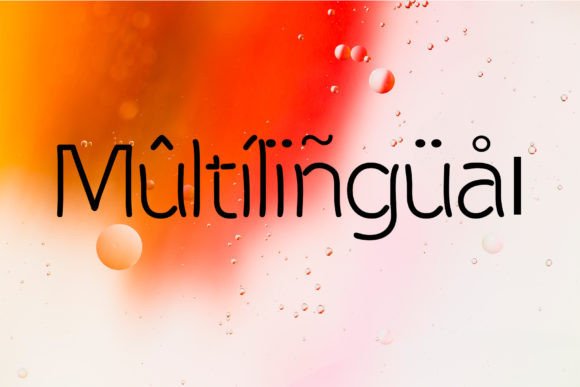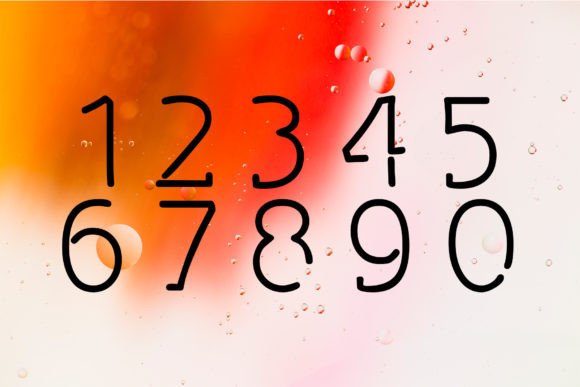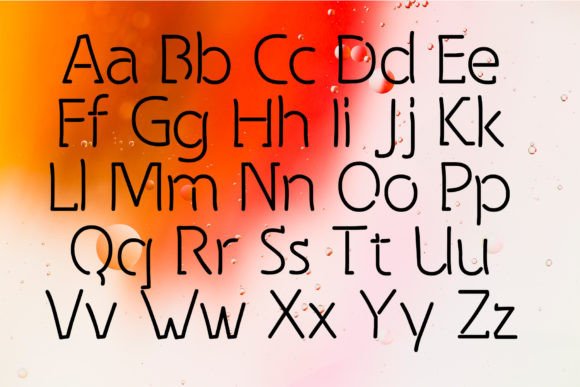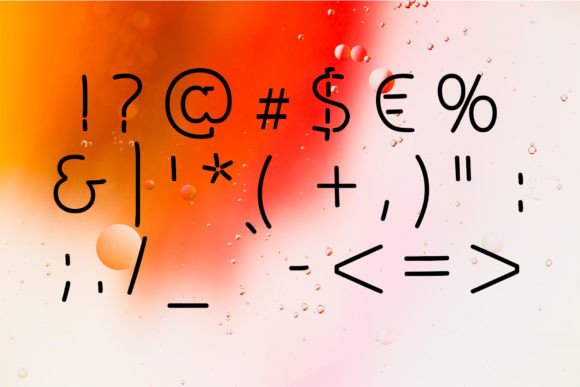
Introduction to Learning Grounds Font
Remember the thrill of discovering a new font that perfectly captures the essence of your creative project? For designers and crafters alike, finding that one special font can be a game-changer. It’s like stumbling upon a hidden treasure that elevates your work to the next level. This is exactly what happens when you come across the delightful Learning Grounds Font.
With its fun and friendly display style, Learning Grounds Font is the perfect design resource for any occasion. Whether you’re working on a digital project, creating handmade crafts, or making personalized greeting cards, this high-quality font is sure to bring a smile to your face and a touch of personality to your work. And the best part? It’s available for free download, making it an accessible and valuable addition to any design arsenal.
As a valuable design resource, Learning Grounds Font offers a transparent background that makes it easy to work with, and its free download makes it a go-to choice for creative projects of all kinds.
Key Features of Learning Grounds Font
- Unique characteristics include a modern and clean aesthetic, making it perfect for creative projects requiring a professional touch.
Honest Review: Learning Grounds Font
I recently stumbled upon the Learning Grounds Font and I’m excited to share my thoughts on this fantastic design resource. The moment I downloaded it, I was impressed by its high quality and versatility.
- ✨ The font has a modern and clean design that makes it perfect for a variety of creative projects.
- ✨ The font is highly legible and works well in both digital and print formats.
- ⚠️ The font is only available in a single weight, which might limit its use in certain design contexts.
- ⚠️ The font doesn’t come with a lot of additional features or styles, which might make it less appealing to designers looking for a more comprehensive font package.
Overall, I’m really impressed with the Learning Grounds Font and I think it’s a great addition to any designer’s toolkit. While it has some limitations, its high quality and free download make it a valuable resource for any creative project.
The Learning Grounds Font is ideal for a variety of creative projects, including presentations, documents, and digital designs. It’s also a great choice for bloggers, writers, and designers who want to add a touch of elegance to their work.